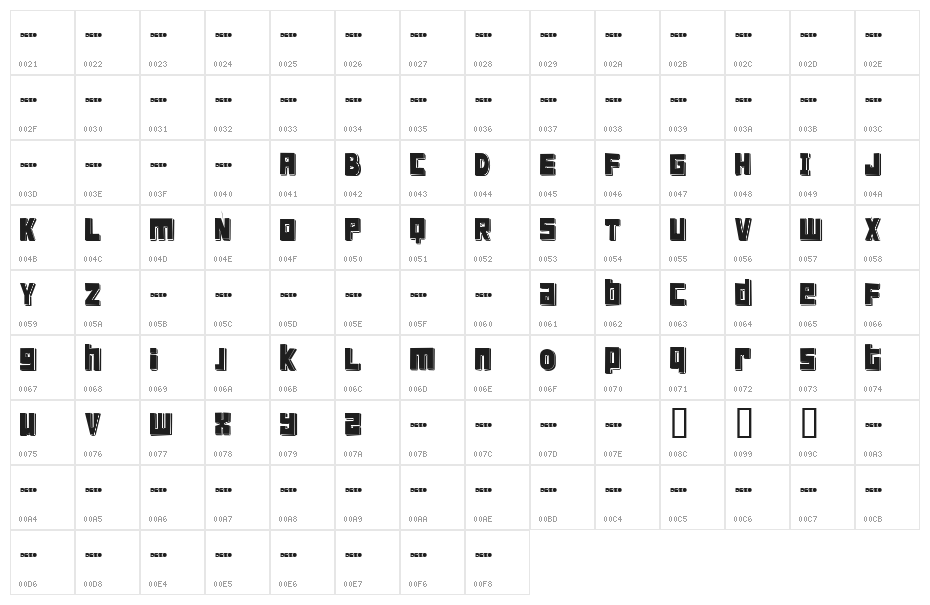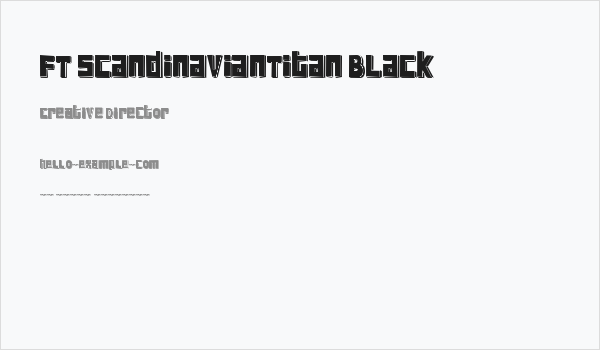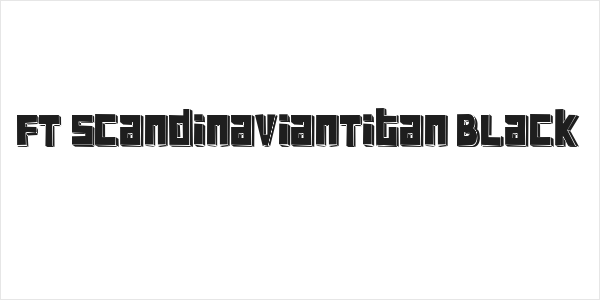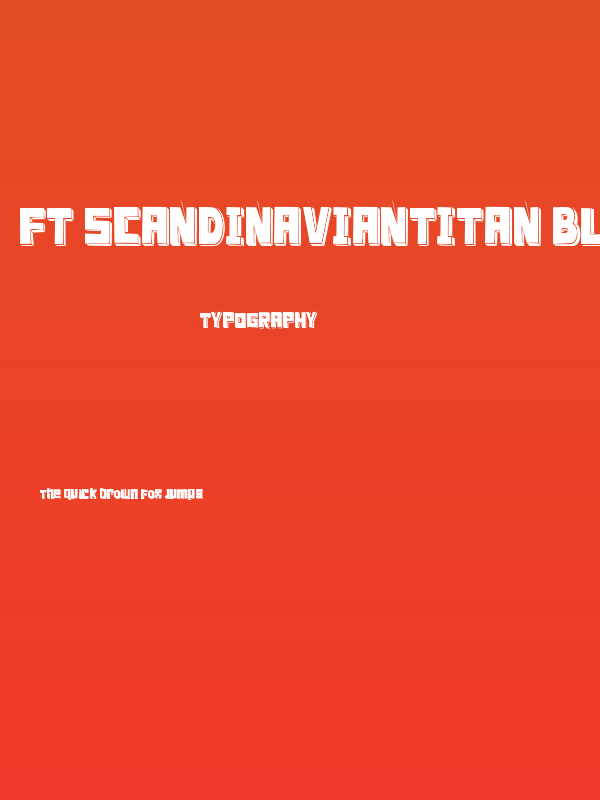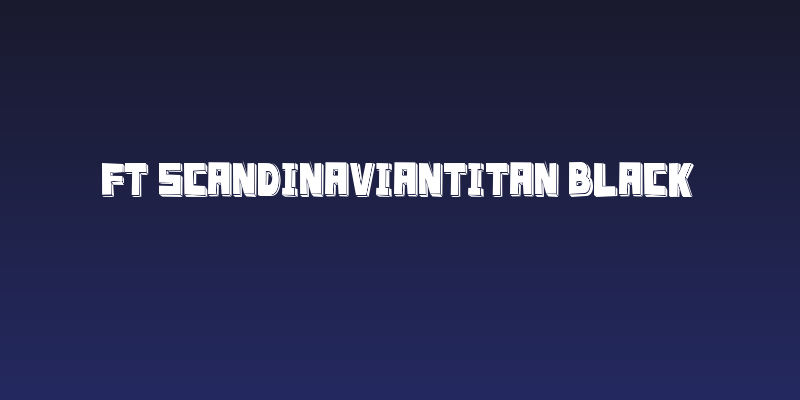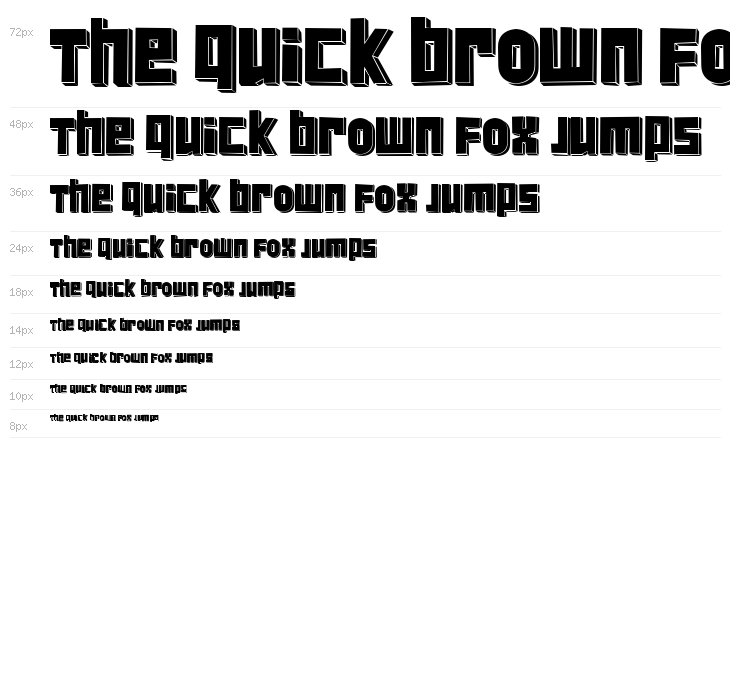
FT ScandinavianTitan Black Font
FT ScandinavianTitan Black Description
This font features a bold, geometric design with a strong presence. The characters are blocky and angular, with a three-dimensional effect that adds depth and visual interest. The uppercase and lowercase letters maintain a consistent style, emphasizing sharp edges and a solid structure. The font's heavy weight and distinct form make it ideal for attention-grabbing headlines or logos. Its unique style is reminiscent of Scandinavian design, combining modern aesthetics with a touch of vintage flair. The spacing between characters is tight, enhancing the compact and impactful appearance.
| Proposed Projects | Ideal for branding, posters, and headlines where a strong visual impact is needed. |